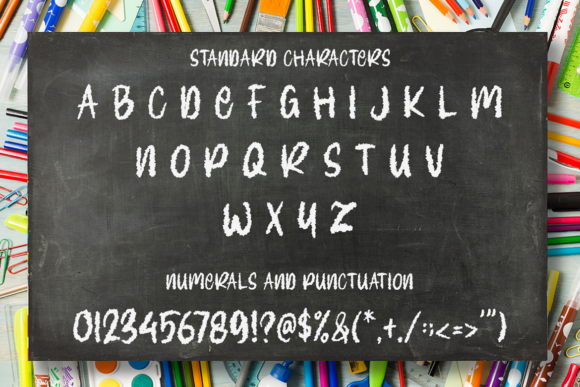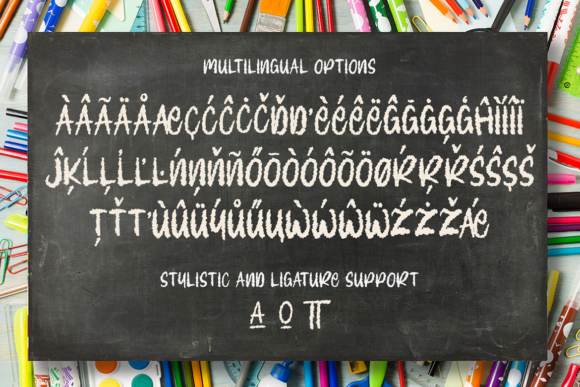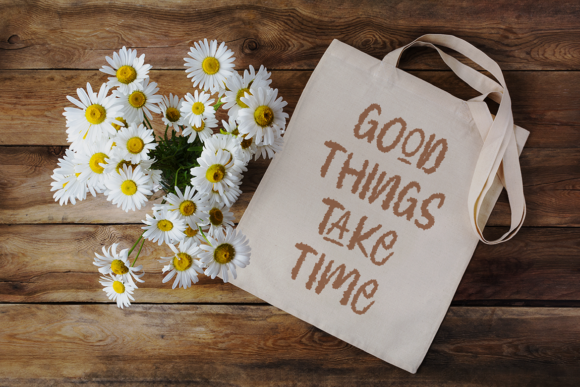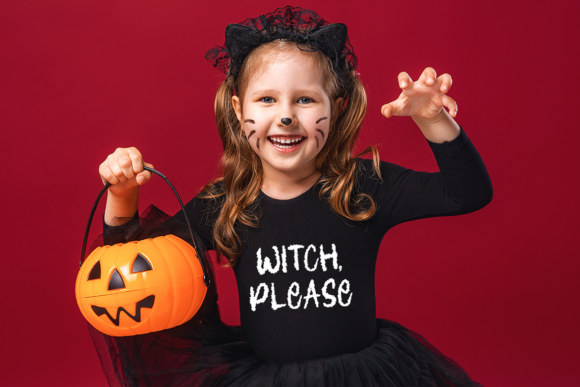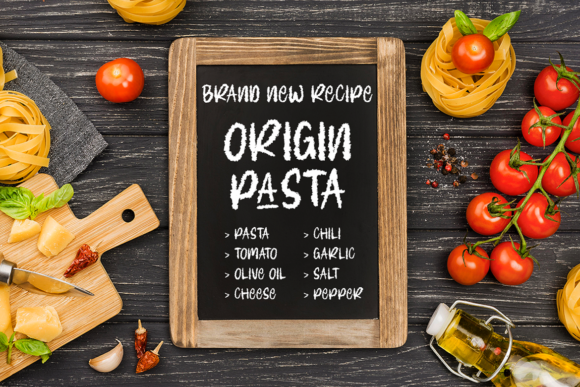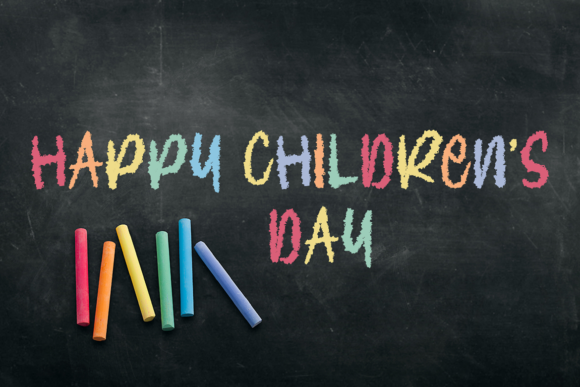
Introducing Chalkboard Font: The Perfect Handmade Chalk Style for Your Creative Projects
Are you looking for a font that can add a touch of handmade charm to your designs? Look no further than the Chalkboard Font! This bold, fun, and stylish font is perfect for a variety of creative projects, from party invitations to social media graphics. In this article, we’ll explore the features and benefits of the Chalkboard Font, and show you how to use it to take your designs to the next level.
What is Chalkboard Font?
Chalkboard Font is a handmade chalk font that mimics the look of traditional chalkboard writing. It’s a bold and playful font that’s perfect for making a statement. With its rough, textured edges and authentic chalkboard feel, Chalkboard Font is sure to add a touch of whimsy and personality to any design.
Features and Benefits of Chalkboard Font
So, what makes Chalkboard Font so special? Here are just a few of its key features and benefits:
- Bold and eye-catching: Chalkboard Font is a bold and attention-grabbing font that’s perfect for making a statement. Whether you’re creating a party invitation or a social media graphic, Chalkboard Font is sure to turn heads.
- Handmade charm: With its rough, textured edges and authentic chalkboard feel, Chalkboard Font has a unique, handmade charm that’s hard to replicate with digital fonts.
- Versatile: Chalkboard Font is a versatile font that can be used for a wide range of creative projects, from party invitations to printed quotes, standout packaging, and beautiful t-shirts.
Project Ideas for Chalkboard Font
So, what can you create with Chalkboard Font? The possibilities are endless! Here are a few project ideas to get you started:
- Party invitations: Create gorgeous party invitations that will set the tone for your special event. Whether you’re planning a birthday party, wedding, or baby shower, Chalkboard Font is the perfect choice.
- Printed quotes: Add a touch of inspiration to your walls with printed quotes in Chalkboard Font. Choose your favorite quote or phrase and print it out in a beautiful, bold font.
- Standout packaging: Make your products stand out with custom packaging in Chalkboard Font. Whether you’re selling handmade crafts or gourmet foods, Chalkboard Font is sure to grab attention.
- Beautiful t-shirts: Create beautiful t-shirts with Chalkboard Font that’s sure to turn heads. Whether you’re designing a t-shirt for a special event or just for fun, Chalkboard Font is the perfect choice.
- Headings and logos: Use Chalkboard Font to create amazing headings and logos for your website or business. With its bold, eye-catching style, Chalkboard Font is sure to make a statement.
- Menus: Create delicious menus with Chalkboard Font that’s sure to make your customers’ mouths water. Whether you’re designing a menu for a restaurant or a food truck, Chalkboard Font is the perfect choice.
- Social media graphics: Use Chalkboard Font to create stunning social media graphics that will grab attention and drive engagement. Whether you’re promoting a special offer or just sharing a fun fact, Chalkboard Font is sure to make your graphic stand out.
Tips for Using Chalkboard Font
Here are a few tips for using Chalkboard Font in your designs:
- Keep it simple: Chalkboard Font is a bold and eye-catching font, so it’s best to keep your design simple and uncluttered. Avoid using too many colors or fonts, and focus on the message you want to convey.
- Experiment with colors: Chalkboard Font looks great in a variety of colors, from bright and bold to soft and pastel. Experiment with different colors to find the one that works best for your design.
- Use it sparingly: While Chalkboard Font is a beautiful font, it can be overwhelming if used too much. Use it sparingly to add emphasis to your design and draw attention to key messages.
In conclusion, Chalkboard Font is a beautiful and versatile font that’s perfect for a wide range of creative projects. With its bold, eye-catching style and handmade charm, Chalkboard Font is sure to add a touch of personality to any design. Whether you’re a designer, crafter, or DIY enthusiast, Chalkboard Font is a must-have font that’s sure to inspire your creativity.